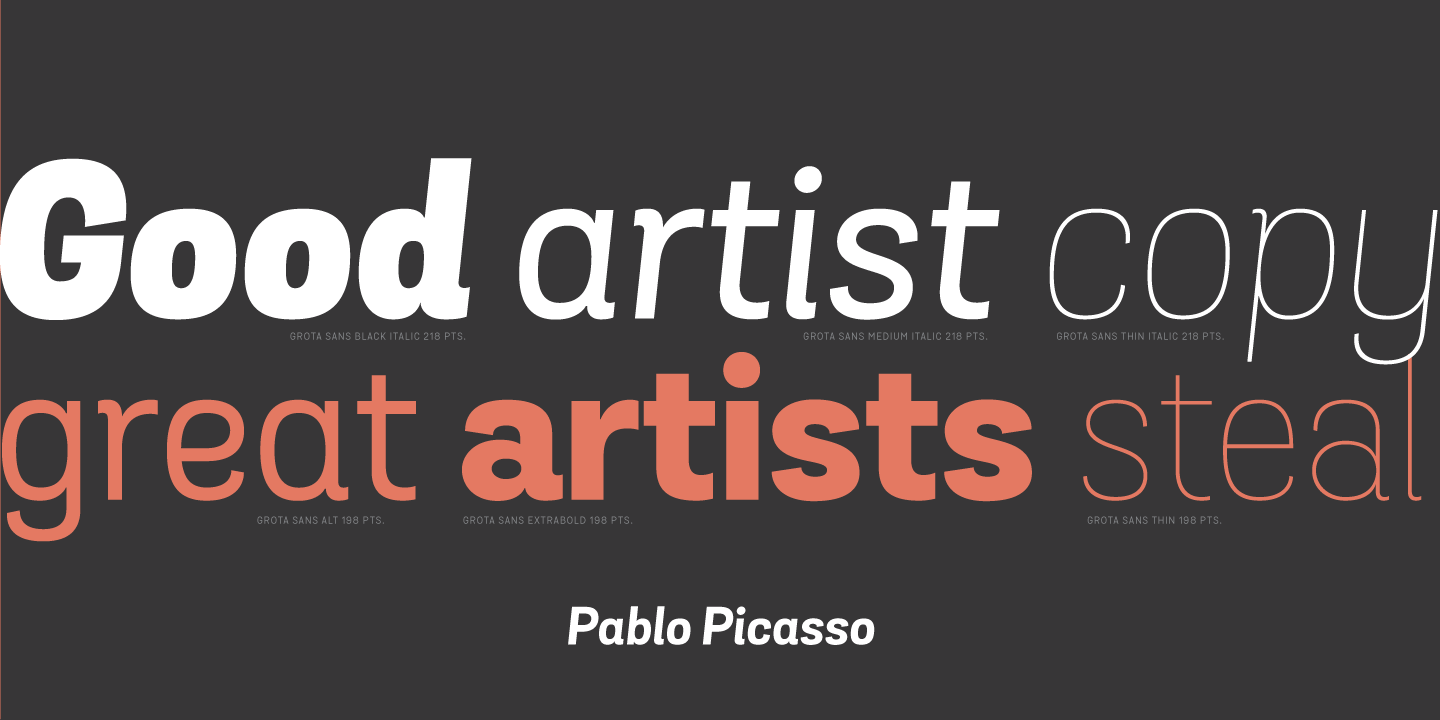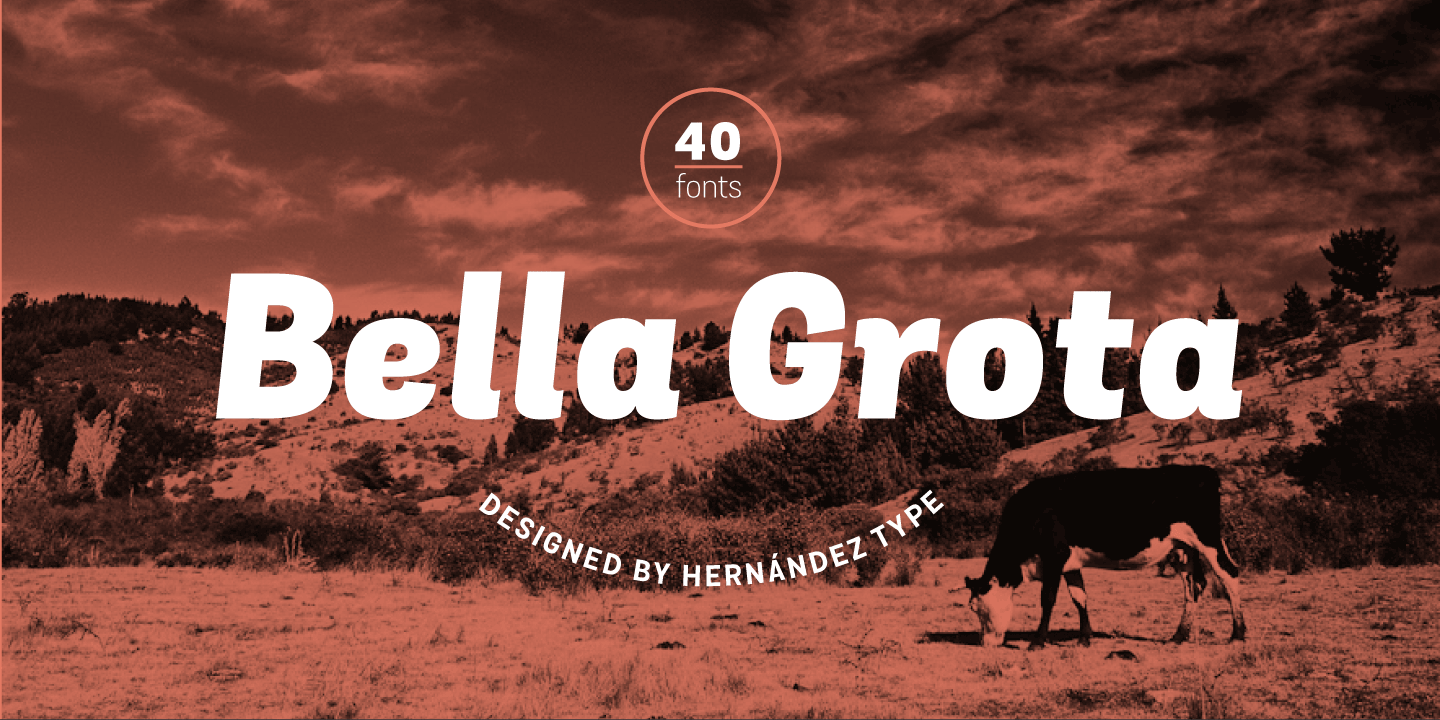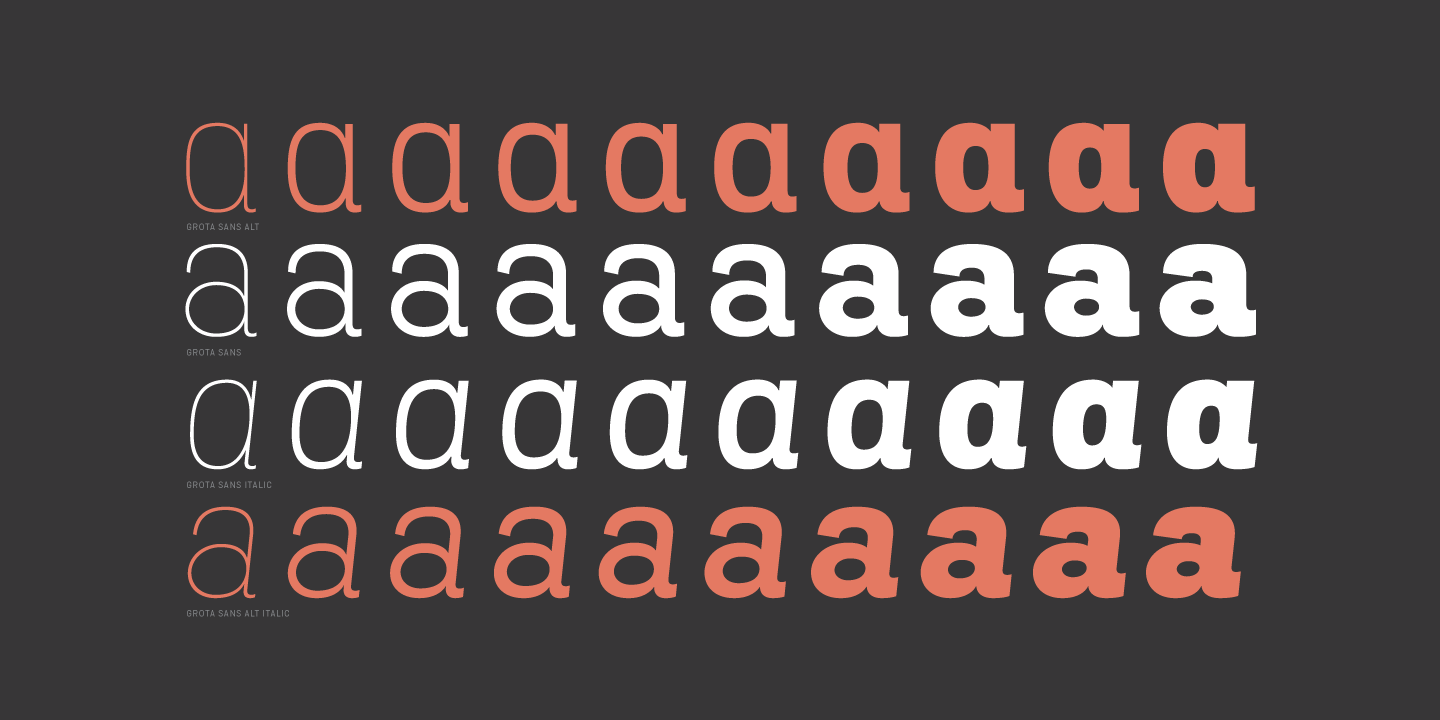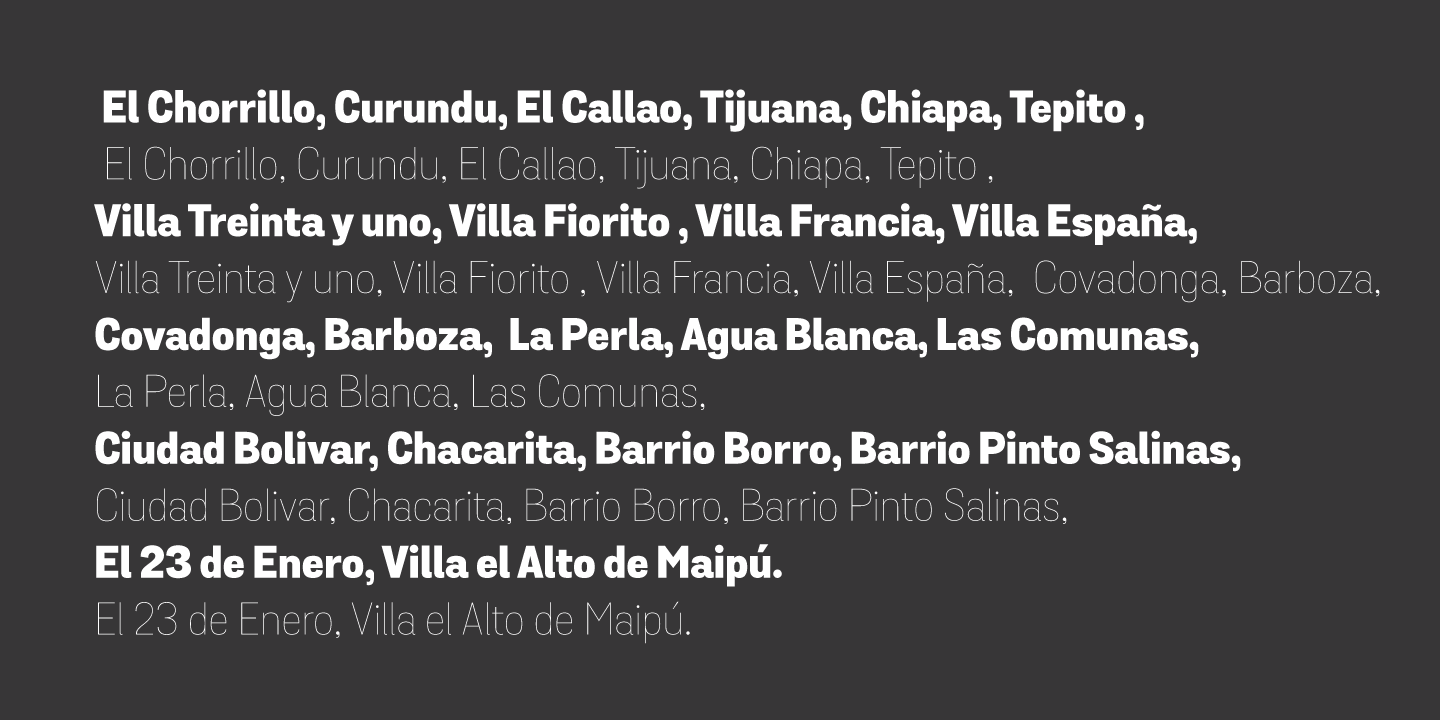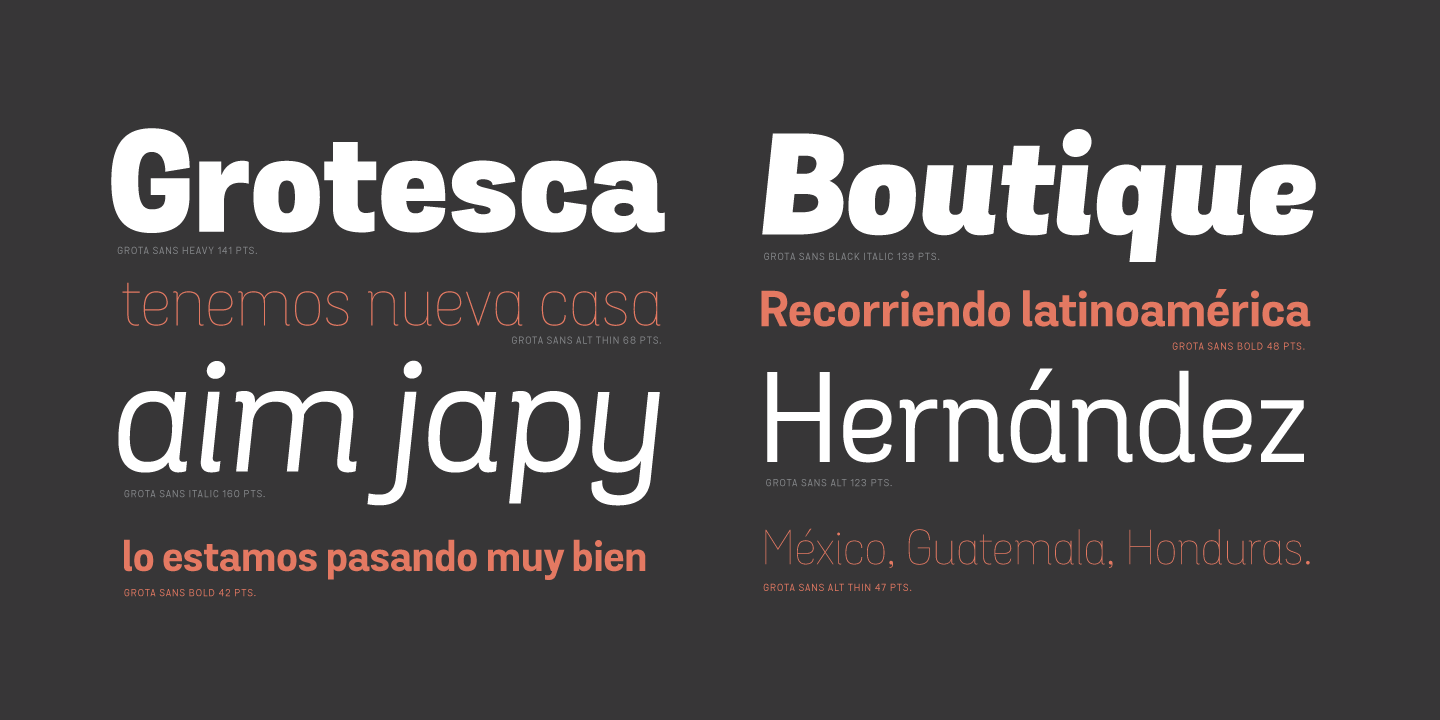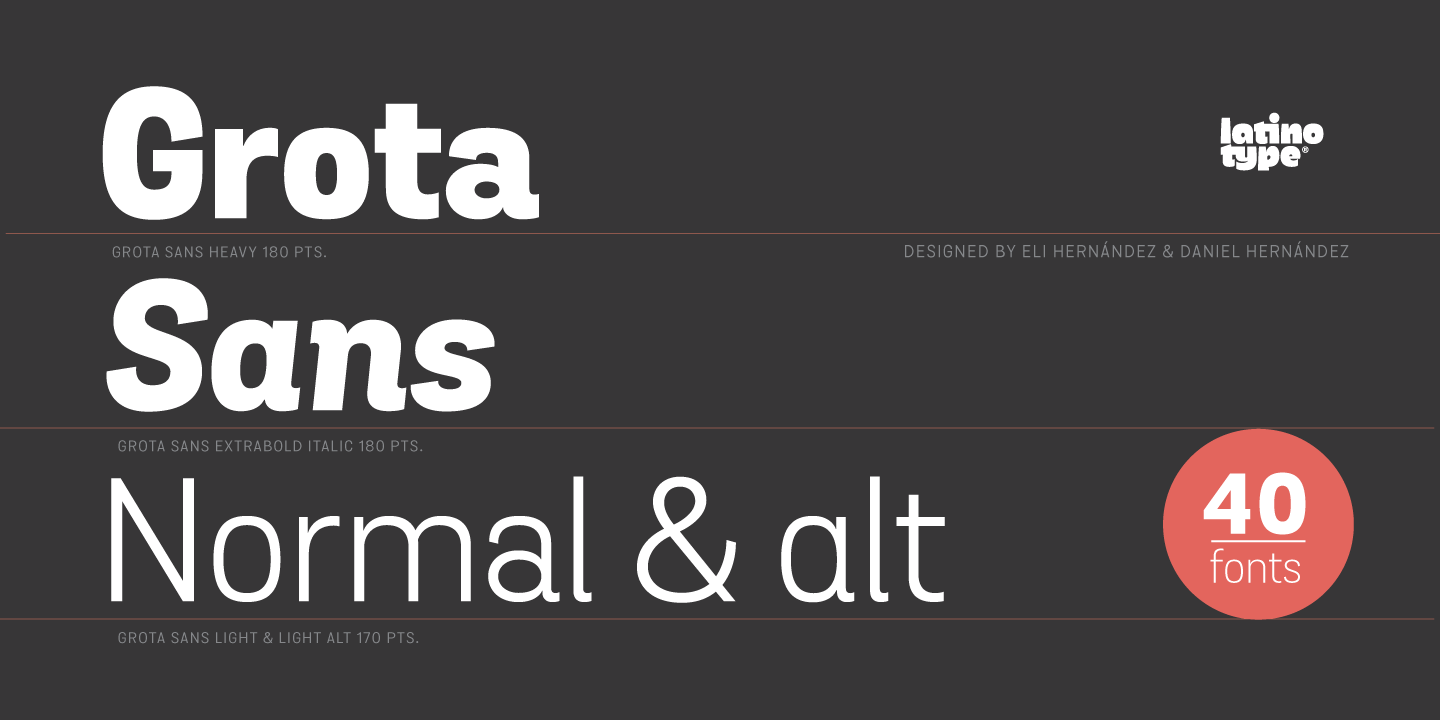
Grota Sans Family (20 fonts)
Grota Sans, was designed by Eli Hernandez and Daniel Hernandez. The style is a grotesque with a Latin spirit. This type comes to accompany Grota Unicase. It’s ideal for logos, brands, books, headlines, etc.